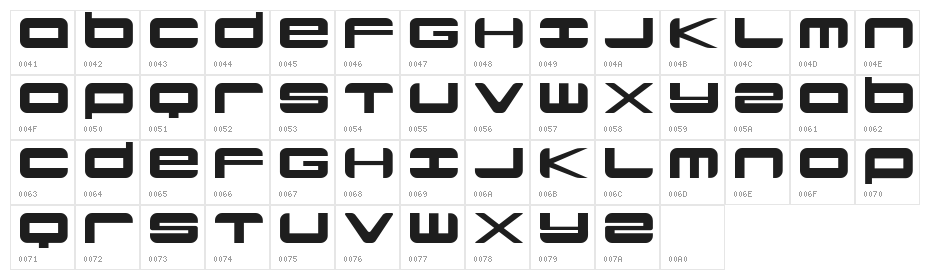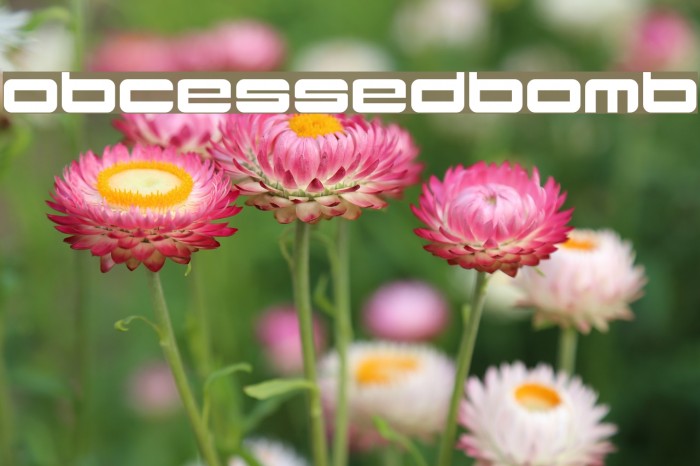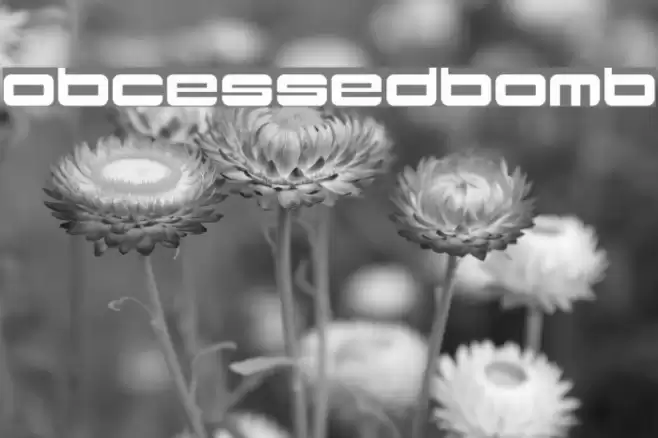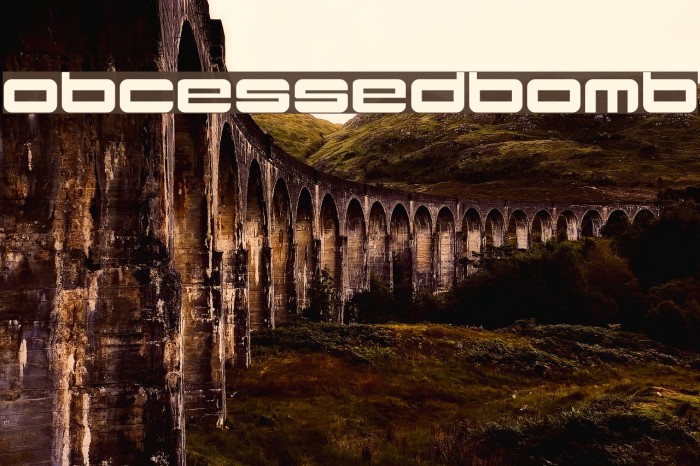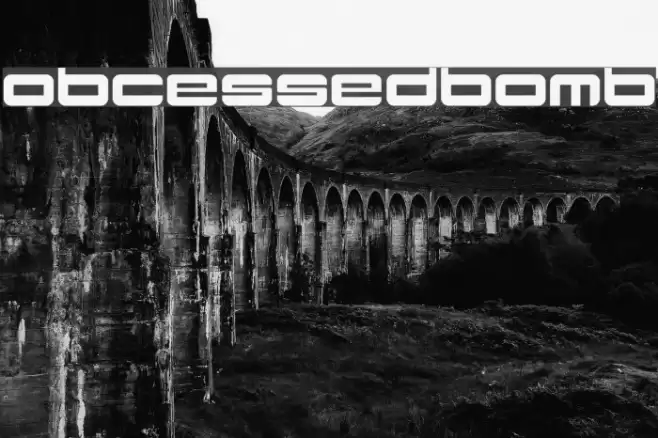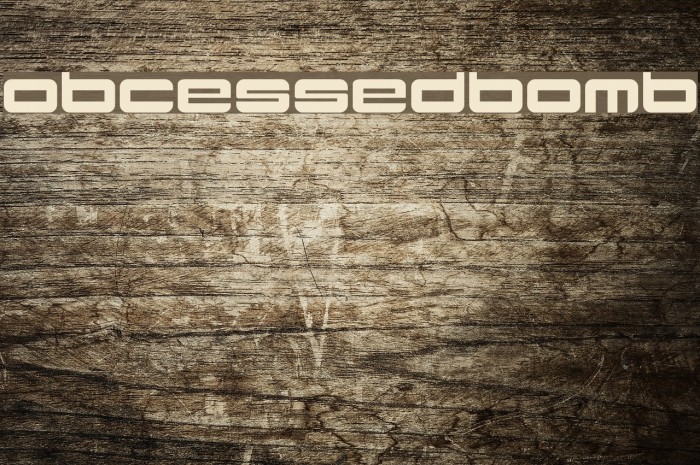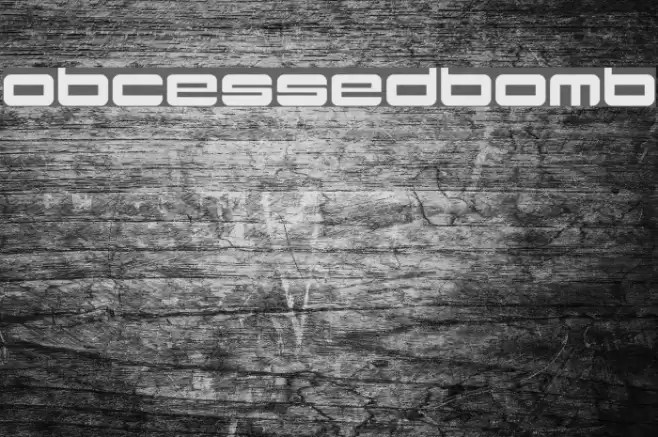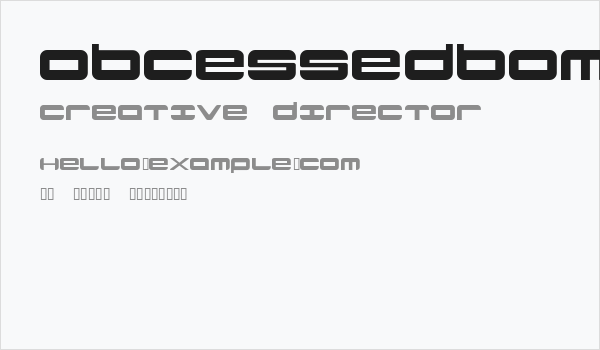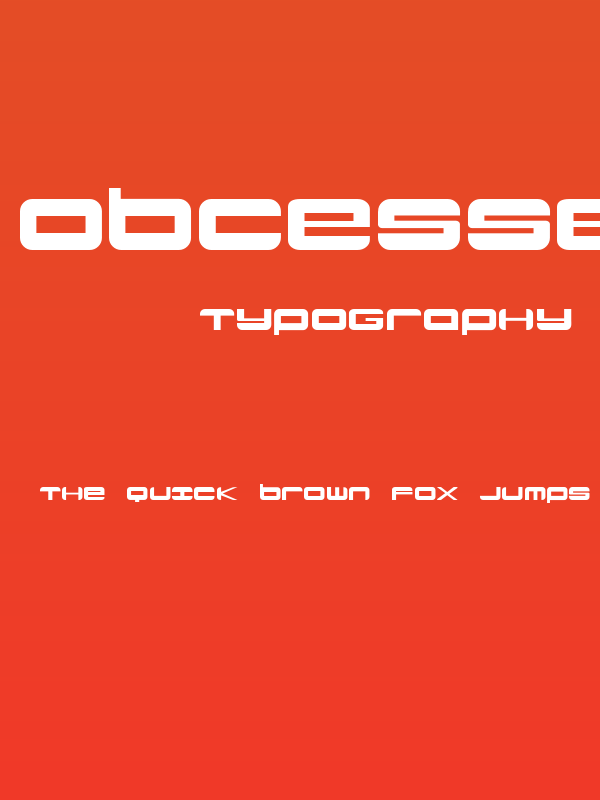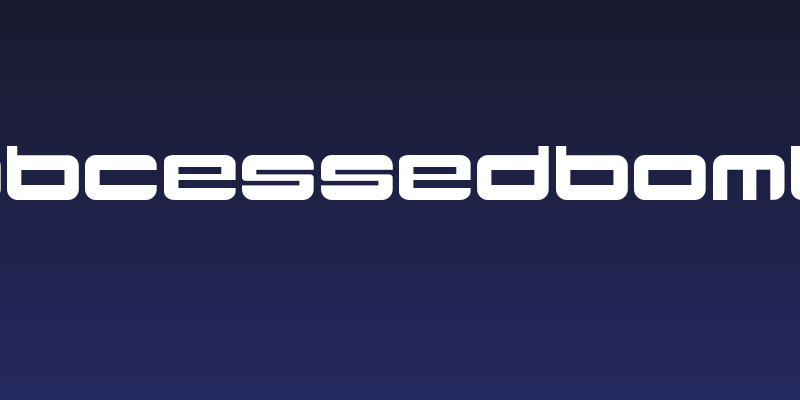
ObcessedBomb Font
ObcessedBomb Description
This font features a bold, futuristic design with a geometric and blocky appearance. The characters are uniformly structured, with rounded edges that soften the overall look. The uppercase and lowercase letters maintain a consistent style, emphasizing a modern and sleek aesthetic. The numbers and special characters follow the same design principles, ensuring uniformity across all glyphs. This font is ideal for projects that require a contemporary and tech-inspired feel, offering a strong visual impact with its distinctive style.
| Proposed Projects | Ideal for technology branding, sci-fi themed designs, video game interfaces, and modern advertising campaigns. |